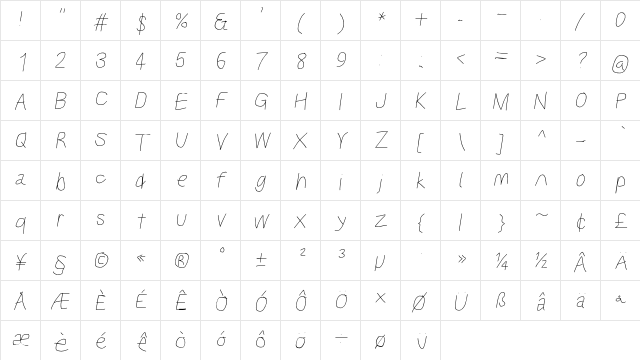
Kabina MedObl
Design Context for Kabina Typeface
Kabina takes a measured approach to typography — its balanced proportions and neutral character make it a reliable workhorse for both digital and print work.